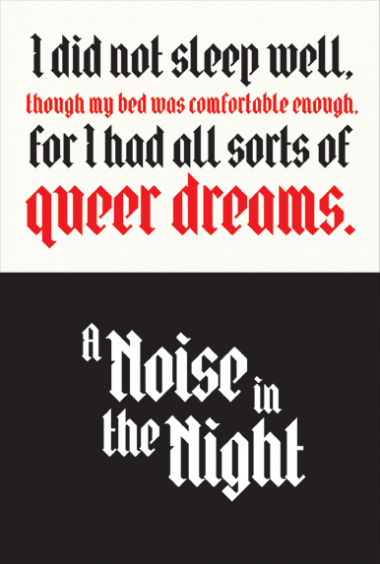
• Yep another blackletter. This is my first font. I Love blackletter and its formal/modular structure seemed an obvious choice for fontstruct. I wanted something kinda simple and stripped back with caps that integrated well and didn't bring too much attention to themselves. That capital N brings attention to itself...
An excellent blackletter font with very consistent design. The glyphs are pretty, the lower case has short ascenders. I'm not sure about the z,Z, however. The sample text looks virtually flawless. Nice debut on FontStruct. Congratulations. 10/10
Excellent stuff. Really like the little nicks you've added, gives it a nice unique feel. Nor sure about the Z,Z, and the i & j look a little stumped. Still it gets a 10/10.
Hey thanks Blokes. I agree about the Z's I monkeyed with them for a while, perhaps I need to monkey some more. Between the angle and the thick & thins something's just not gelling.
For the Z, the X is a good starting point. I have a suggestion for the z. Number 2 may need some work too.
Wow perfect! The change stands. I did try it with a crossbar but only a horizontal one, your idea is much better. Perhaps I can base the 2 more on the z -- think there's something there. OK back to real work! Thanks heaps!
Wow! what a great first font. Maybe it is 'another blackletter' but it is worthy to stand with the best. 10/10
Thanks! Someone made a comment about the stumpy i's and j's -- they're right of course. I'm experimenting with these now, this has meant the dot (?) above the i needed to be restyled to fit with the height of the ascenders. And this'll have implications for the height of the acutes etc. I think it looks better though.
You've done a wonderful job. The i,j are OK; you can ask djnippa for more specific guidance. The ascenders could go a bit higher, even above the caps height, but it's a matter of taste, of course. Don't forget number 2 in fractions and superscript.
2's done. Also I wanted a bit more room around the dots on the i and j so I pumped up the ascenders a bit more to compensate. Overall I reckon it does make the font better, especially the d (still not perfect) which was bugging me. Thanks guys again for the great suggestions and refinements. I love that they cause other problems that lead to better solutions.
The Mexican stuff may be a bit of a stretch (the blackletter seems to be a little more rounded in my scant 'research') but I was curious to see how it looked. It shows me that there's a little more work to be done on the accents/acutes etc.
Thanks very much! I've fine-tuned the acutes, graves and tildes to make them less clunky.
great blackletter font.:)
Congratulations for your Top Pick, but 99% of the blackletter fonts are top picked, so...
In comparison, less than 1% of the alien fonts are top picked, so...
Bit more Mexican silliness:
@neurone error That sure sounds like a backhanded compliment.
HO! nice blackletter, I love IT
your samples are great
I love the negative scratch in the steam. The overall look is very unique. perfect 10 bravo!
Thanks! I did the notches just to add a small point of interest to the upper case and to give the letters a bit of a 'waist'.
Works surprisingly in a Gothic context as well as the Mexican- type colors you used in you examples